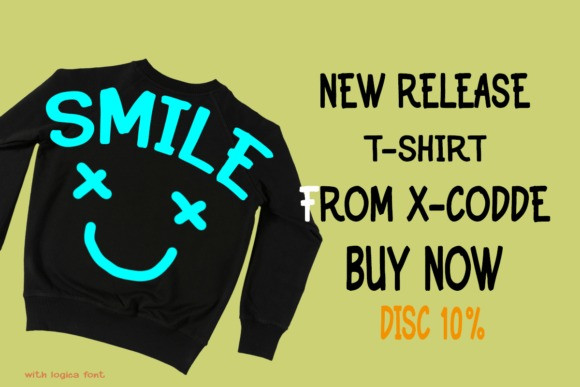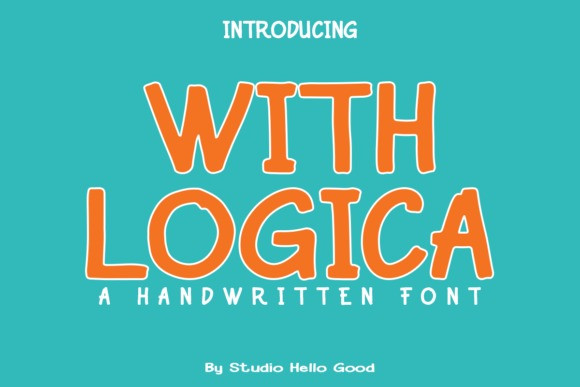
With Logica Font
With Logica Font a whimsical yet structured typeface designed to spark the imagination of young readers. Crafted with the curiosity of children in mind, With Logica combines playful elements with clear legibility, making it perfect for educational materials, storybooks, and anything geared towards the young and inquisitive.